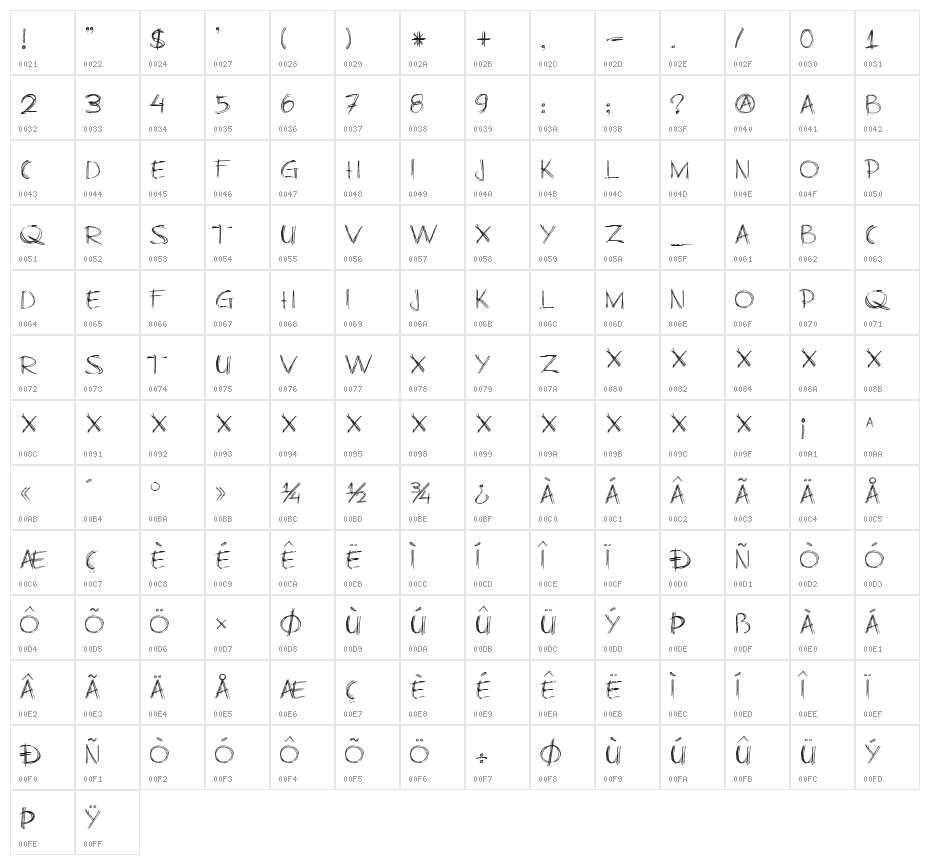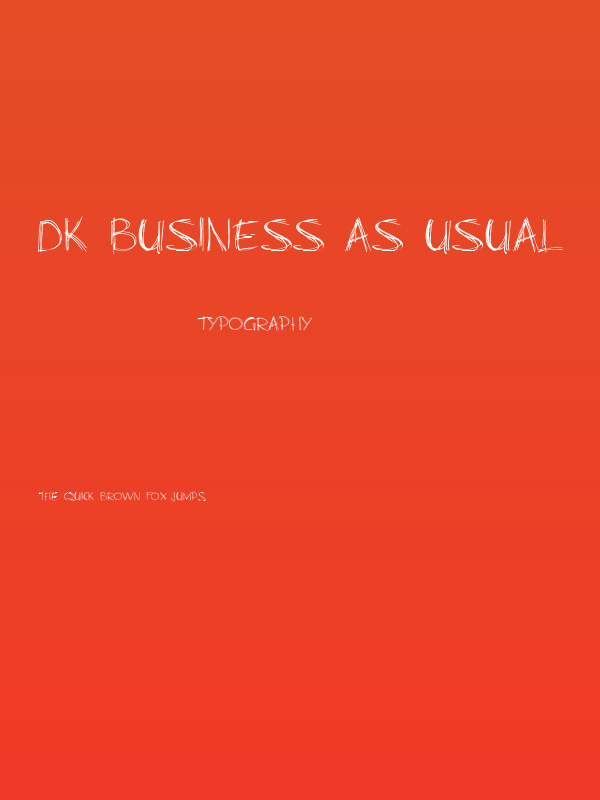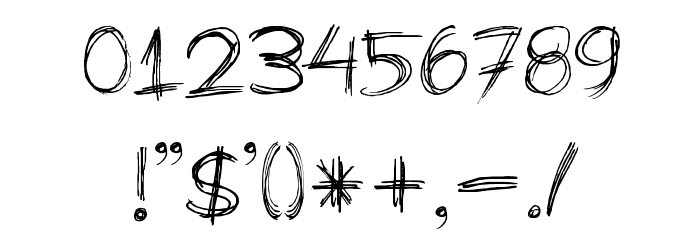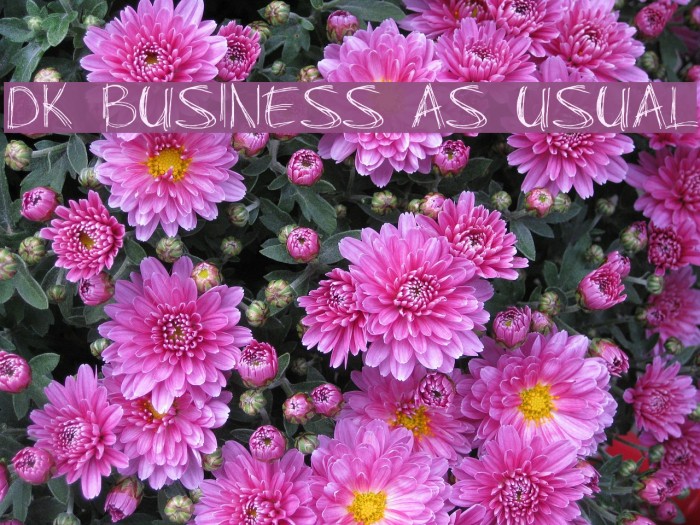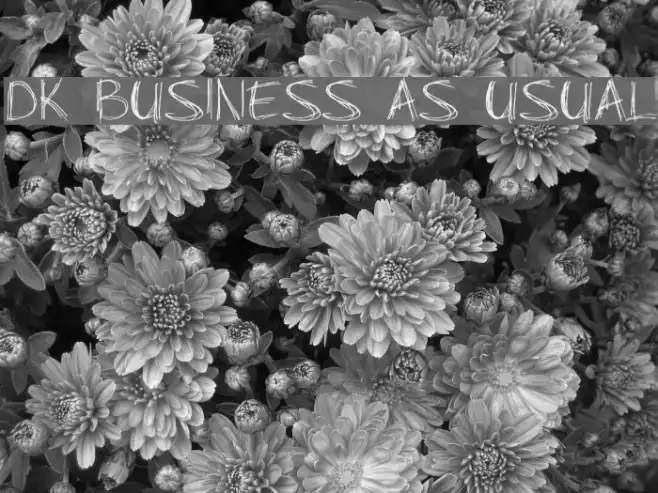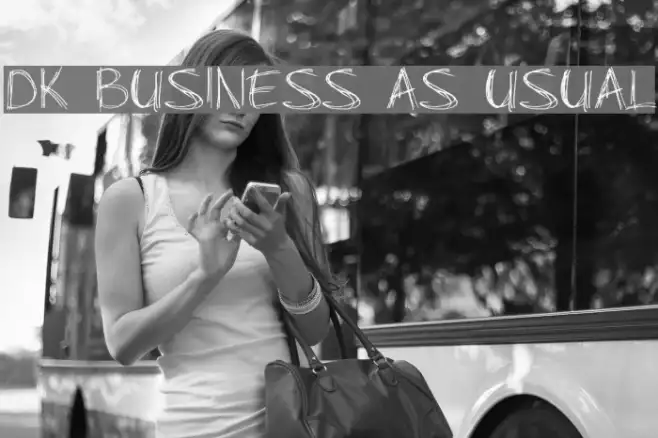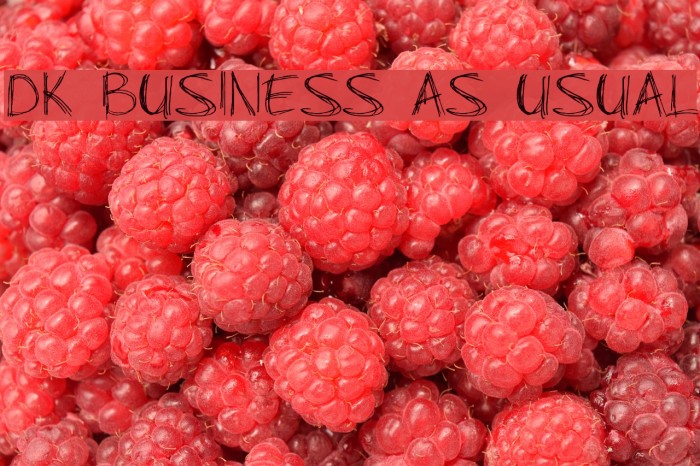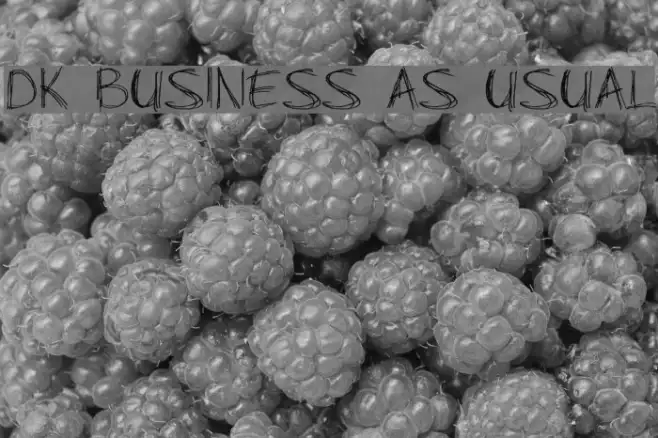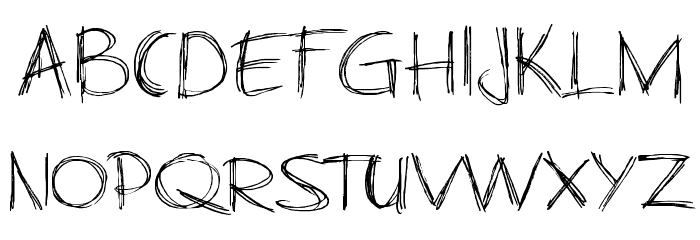
DK Business As Usual Font
This font features a dynamic and edgy style, characterized by its rough, hand-drawn appearance. The letters have an irregular, sketch-like quality, giving them a sense of movement and energy. Each character is unique, with varying line thicknesses and angles, creating a visually interesting and engaging look. The font maintains legibility while offering a distinctive artistic flair, making it ideal for creative projects that require a bold and unconventional aesthetic.
| Overall Style | Modern, Artistic |
| Proposed Projects | Ideal for album covers, posters, graffiti art, and branding projects that require a bold, artistic touch. |